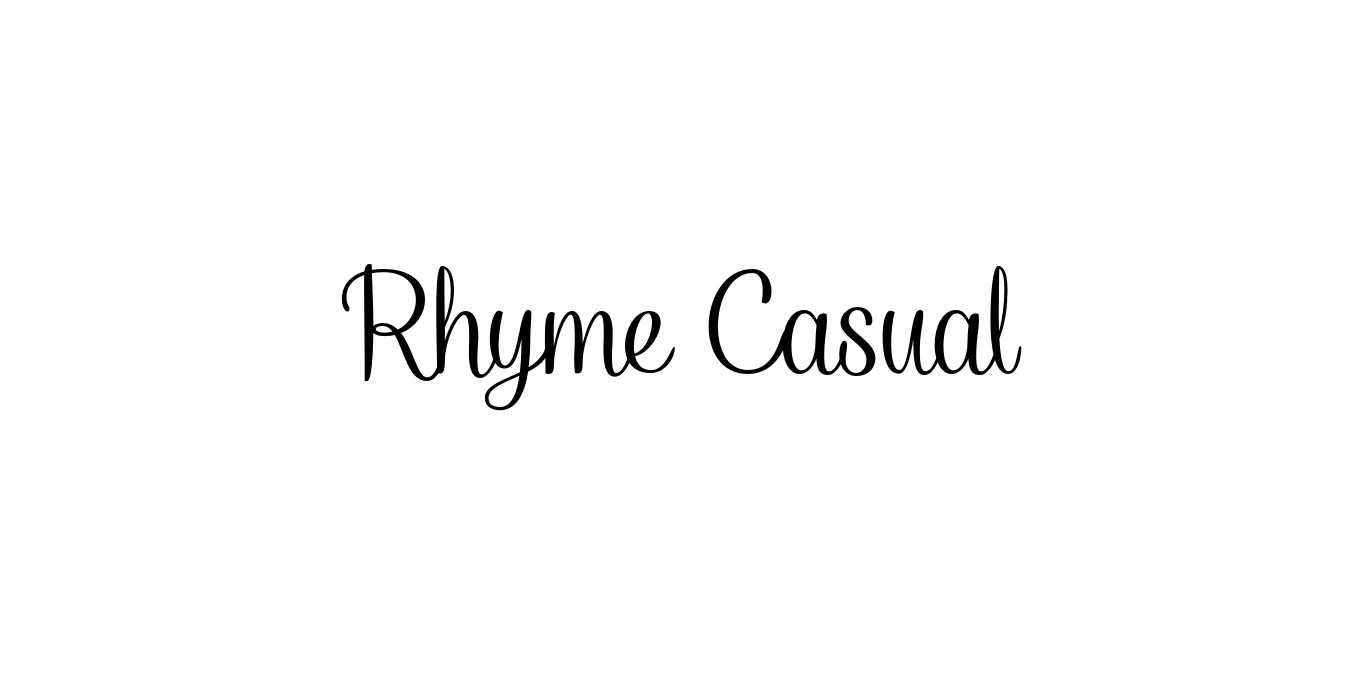
Rhyme Casual
Rhyme Casual is a contemporary brush script font designed to convey a sense of effortless style and organic movement. Characterized by its relaxed letterforms and subtle texture, this typeface mimics the natural flow of a felt-tip marker or a light brush stroke. It was developed to bridge the gap between formal scripts and chaotic handwriting, offering a clean yet personable aesthetic that works well in modern design environments.
The font features a comprehensive set of characters that maintain a consistent rhythm, making it highly legible despite its informal roots. Its versatility allows it to be used in various high-impact scenarios where a human touch is required. From trendy lifestyle branding to digital content creation, Rhyme Casual brings a friendly and approachable personality to any project it is applied to.
Rhyme Casual Best Uses
Ideal for lifestyle brands and creative logos requiring a personal touch.
Perfect for eye-catching quotes, stories, and influencer content.
Adds a personalized, handcrafted feel to artisan product labels.
Works exceptionally well for casual t-shirt slogans and streetwear design.